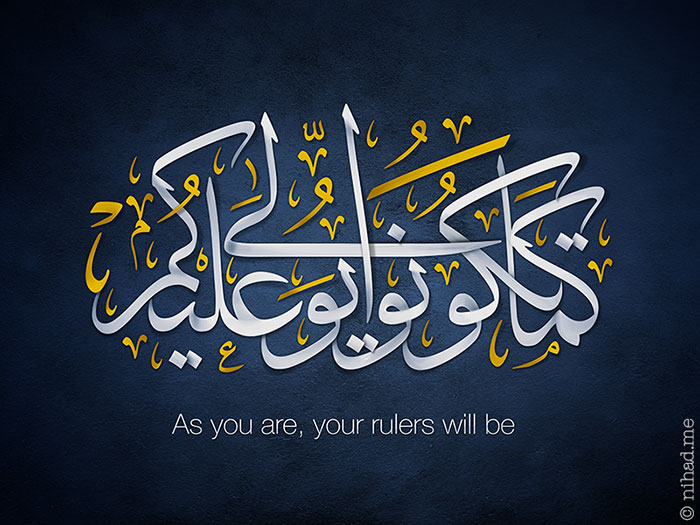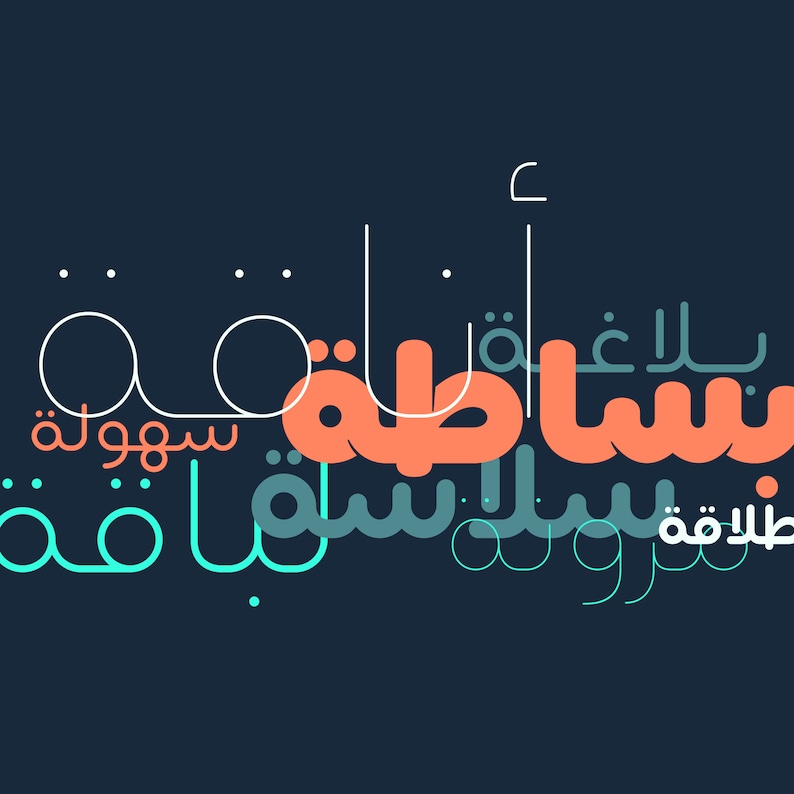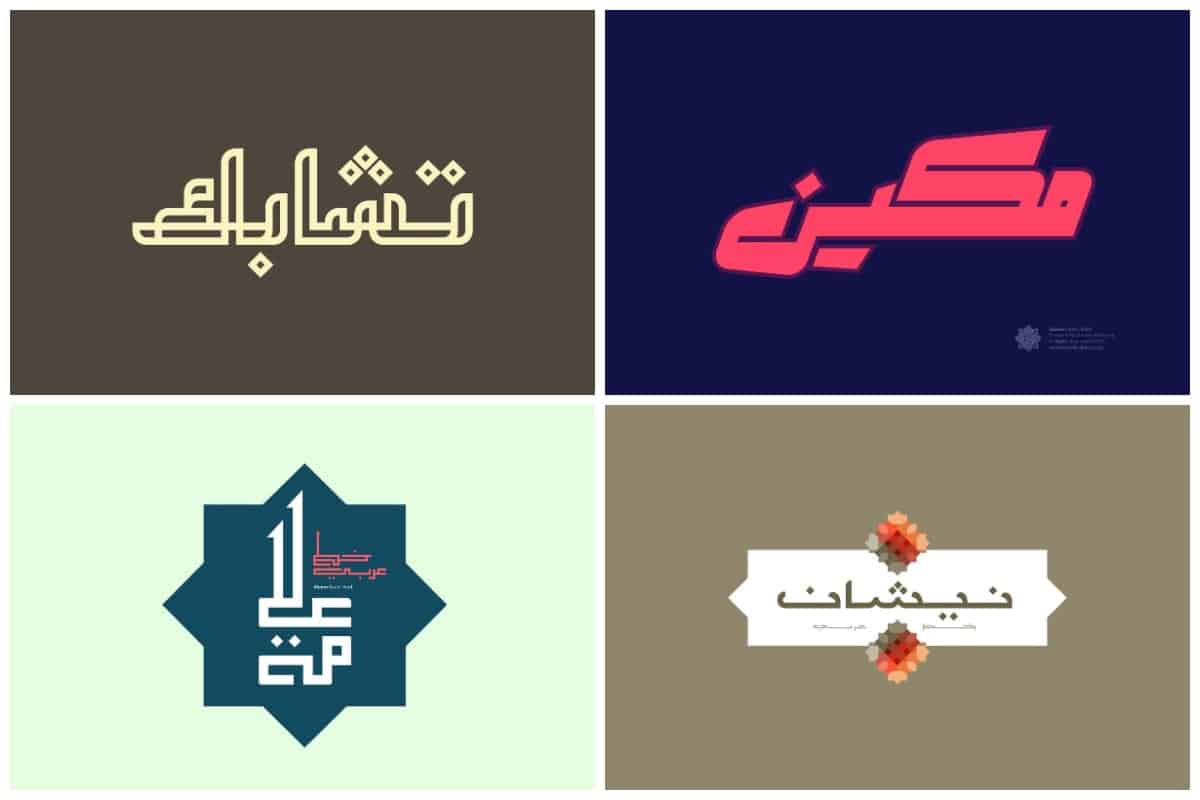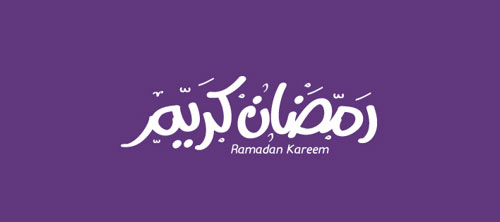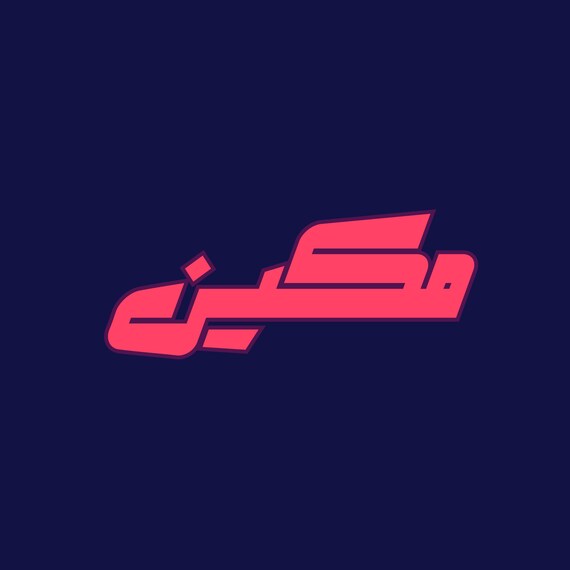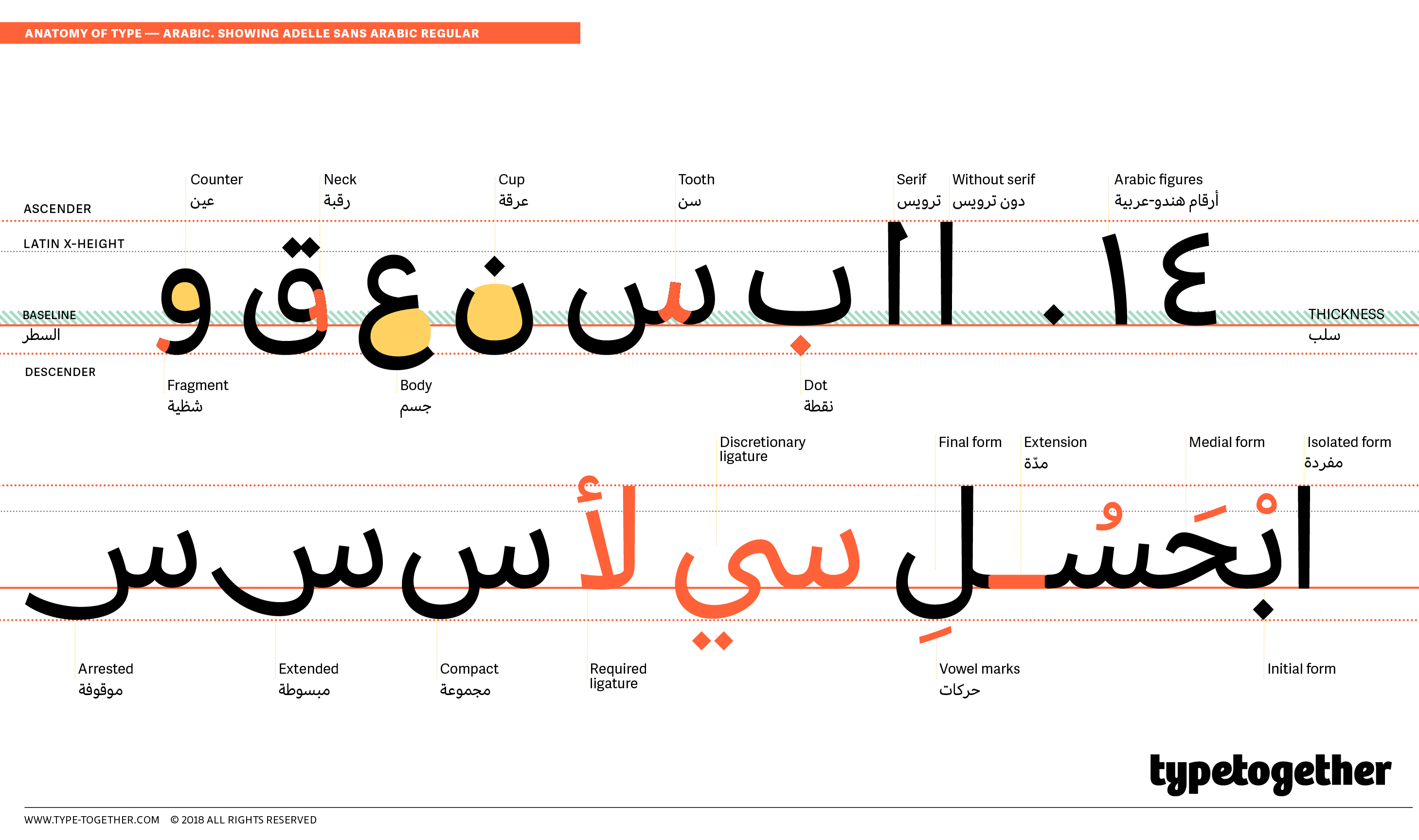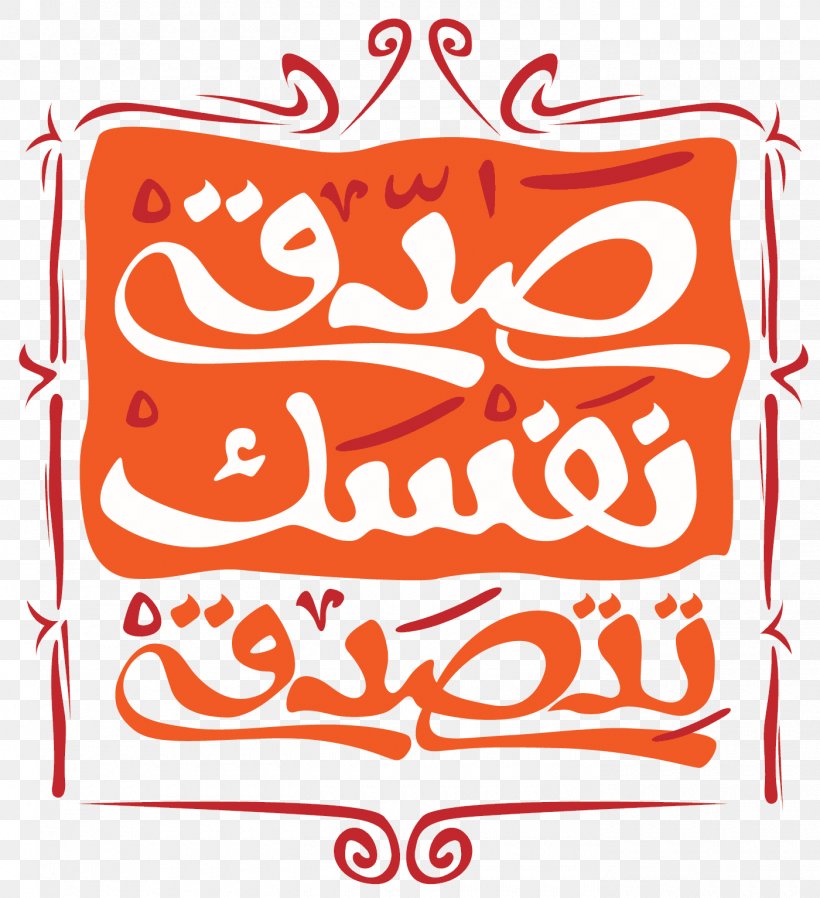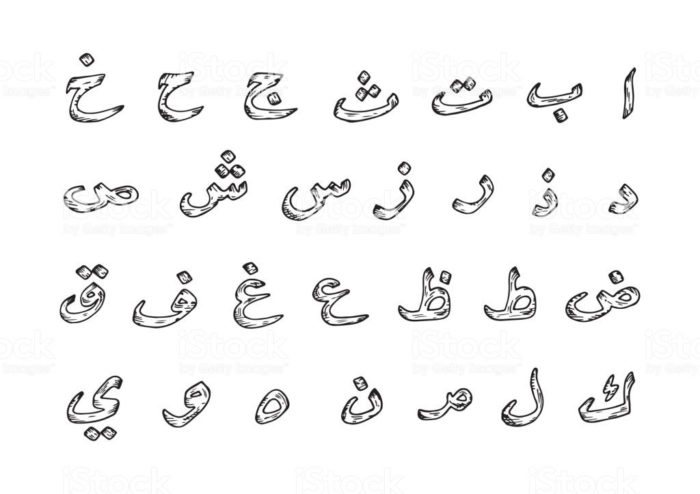
Typography fonts arabic. This can be a great choice of font for creative design related to any digital product advertising or related project. Althawra Fikra by syria arabic. The words written are in blue and yellow color.
Basic form for arabic font is refers to the arabic kufi style with combining the cuppped serif on top. Ceria Lebaran by Adien Gunarta. 1 font style from 2000.
The font is currently 44 in Hot New Fonts. Islamic Art Islamic Quotes Muslim Ramadan Activities Quran Arabic Calligraphy Letters Caligraphy Ramadan Mubarak Typography. Arabic lettering is different from western lettering because the image of the word is seen to be more important than the letter.
Nur Hidayah by Anomali Creative. JH Diwani by JH Fonts. Inspired by the 8-bit graphics Paxalah is a great choice of Arabic font if you are looking for a digital pixelation type of font.
Jazayeri Kufic Shoushtar by Arabetics.